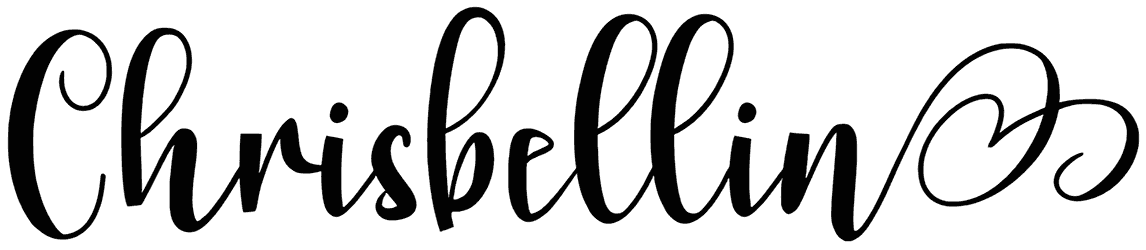
Chrisbellin Font
Chrisbellin is a contemporary font that manages to be both cute and sophisticated. Whether it’s a book, an invitation, a video, a tattoo, or anything else, this handwritten font is ideal.